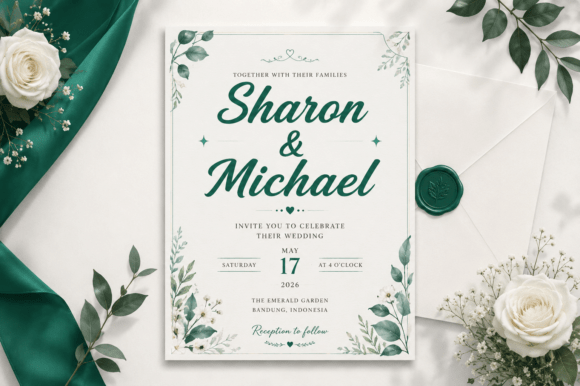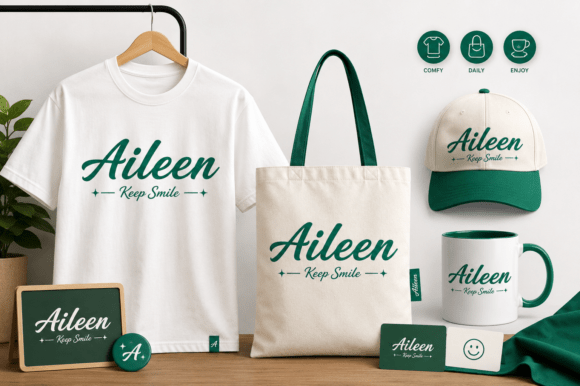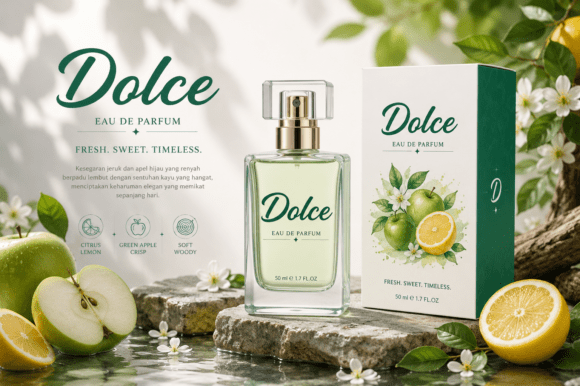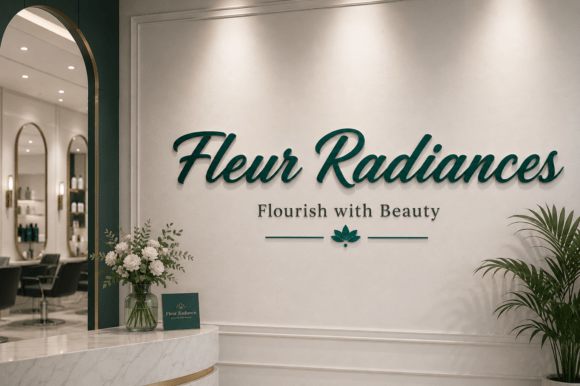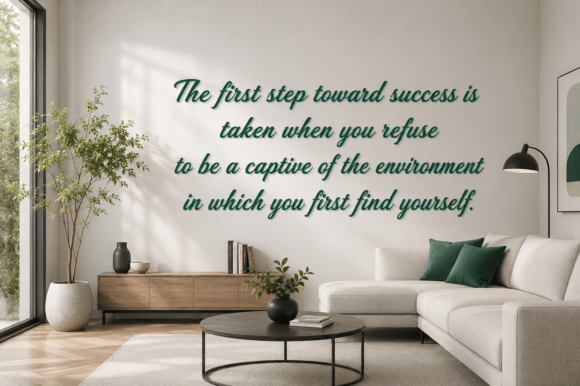
Introduction to Rosaline Font
Introducing Rosaline – a classy, contemporary script font that seamlessly melds sleek strokes, elegant curves, and intricate calligraphic nuances.
The font blossoms in settings like classy logos, wedding stationeries, beauty-related identities, welcoming invitations, exclusive packaging, and any opulent, luxury-focused project Rosaline’s enduring sophistication and polished style infuse an aura of alluring charm, soft femininity, and a distinct sense of professionalism into every design it graces.
Key Features of Rosaline Font